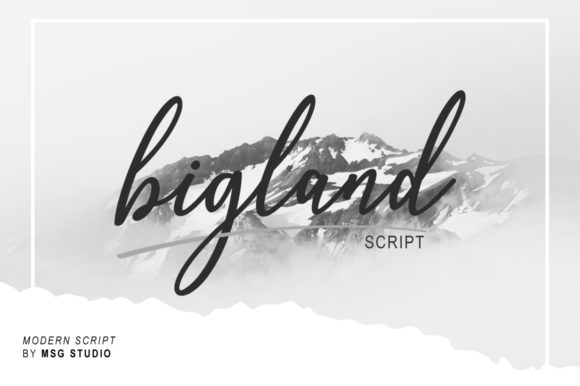
Introducing Bigland Font, the exquisite script font that will elevate your designs to new heights of elegance and charm. Crafted with meticulous attention to detail by the talented masinong, Bigland is a beautiful handwritten font that exudes joy and romance with every stroke.
As a script font, Bigland possesses a natural, flowing aesthetic that adds a personal touch to your creations. Its graceful curves and delicate swashes lend a touch of femininity and elegance to any project, making it an ideal choice for wedding invitations, love letters, and other heartfelt messages.
The versatility of Bigland Font extends beyond personal projects, making it a powerful tool for businesses and marketers alike. Its distinctive style adds a touch of sophistication to marketing campaigns, capturing the attention of potential customers with its eye-catching appeal. Whether you're designing posters, brochures, or social media graphics, Bigland Font will help you create materials that stand out from the crowd and leave a lasting impression.
One of the remarkable features of Bigland Font is its PUA encoding, allowing you to effortlessly access its full range of glyphs and swashes. This means you can easily incorporate beautiful accents and embellishments into your designs, adding an extra layer of charm and personality to your work.
With Bigland Font in your creative arsenal, you'll discover endless possibilities for expressing yourself. Whether you're a graphic designer, a crafter, or simply someone who loves adding a touch of beauty to their everyday life, this delightful font will become your go-to choice for adding a personal and heartfelt touch to all your projects.